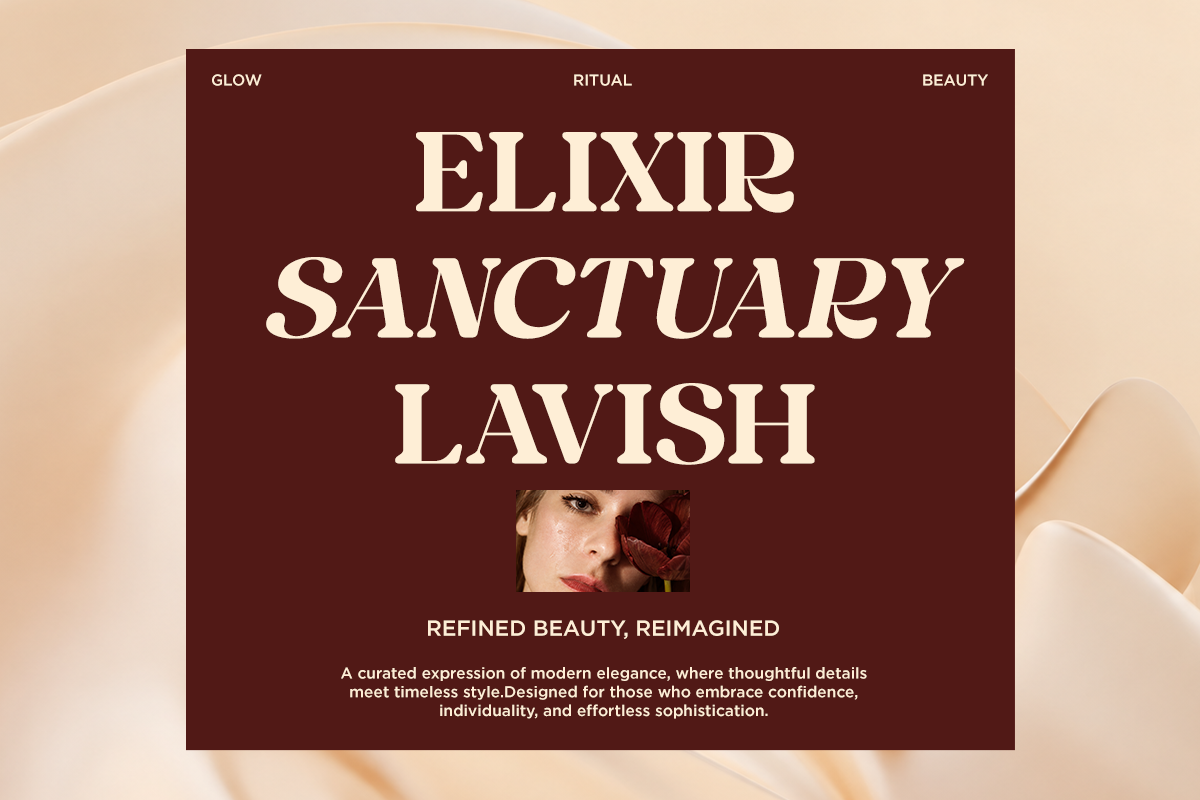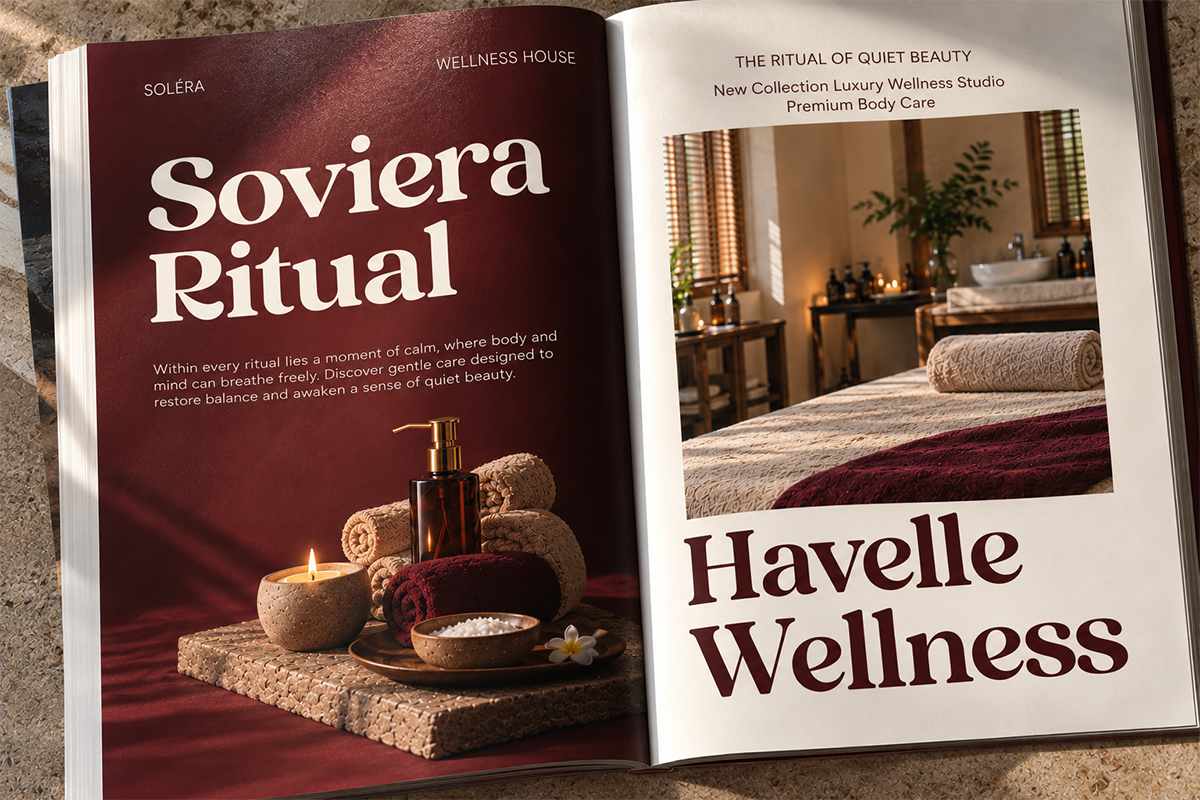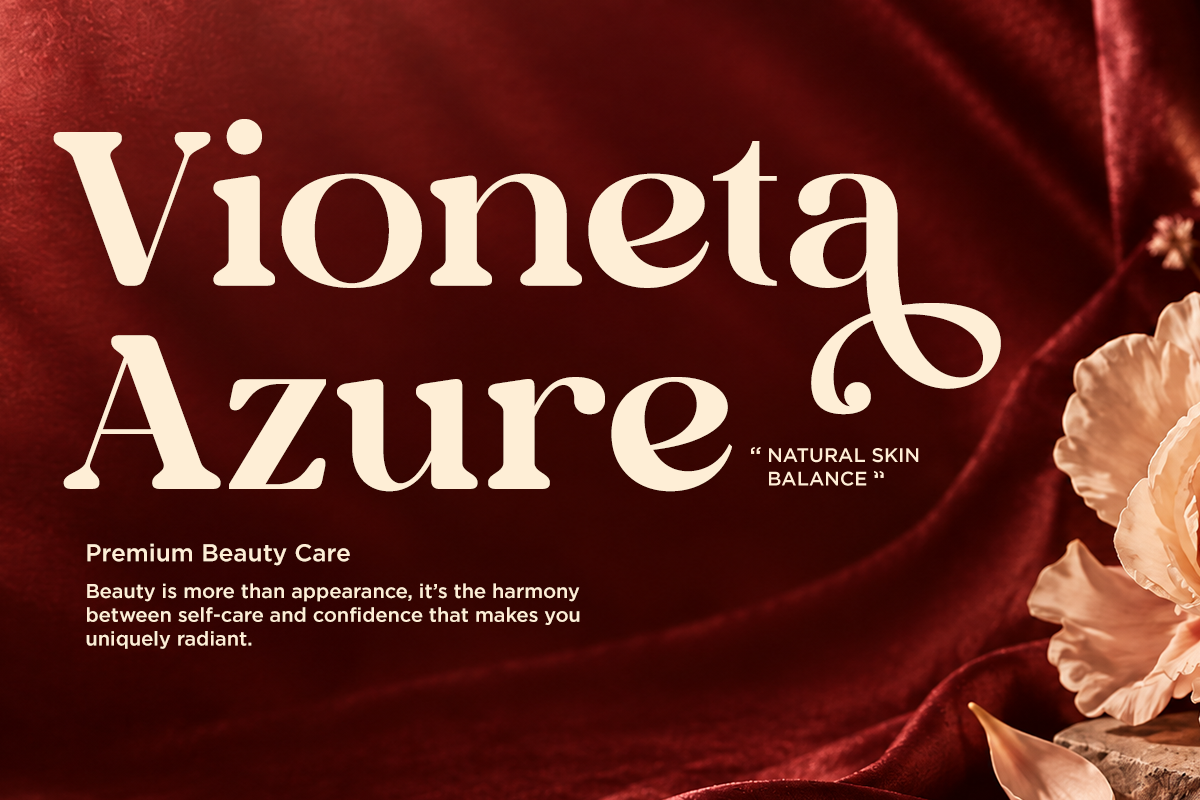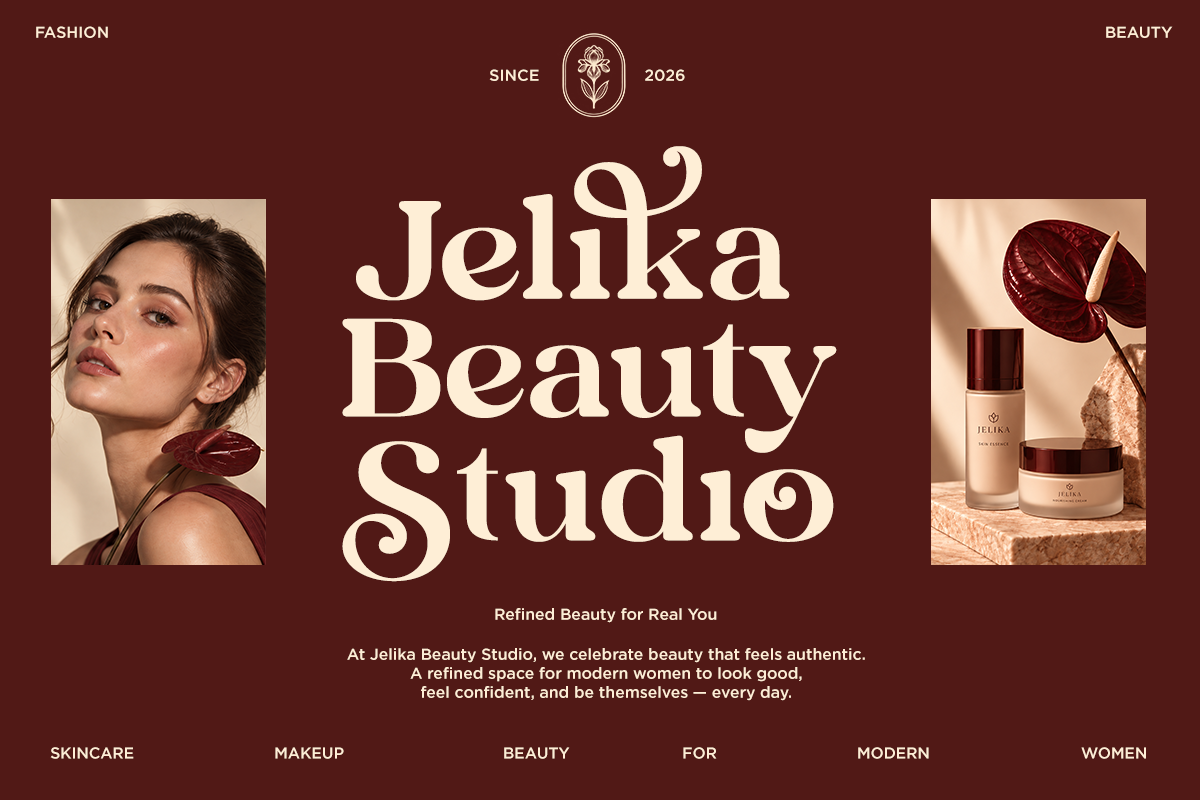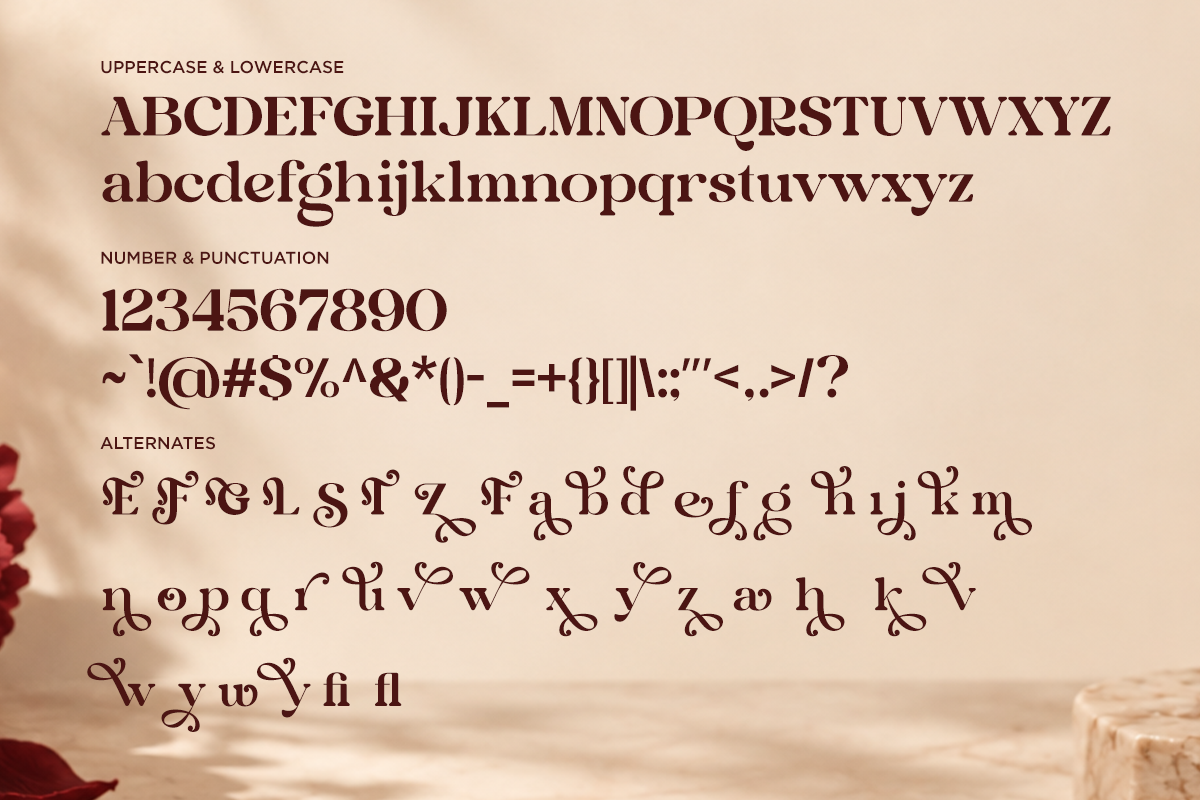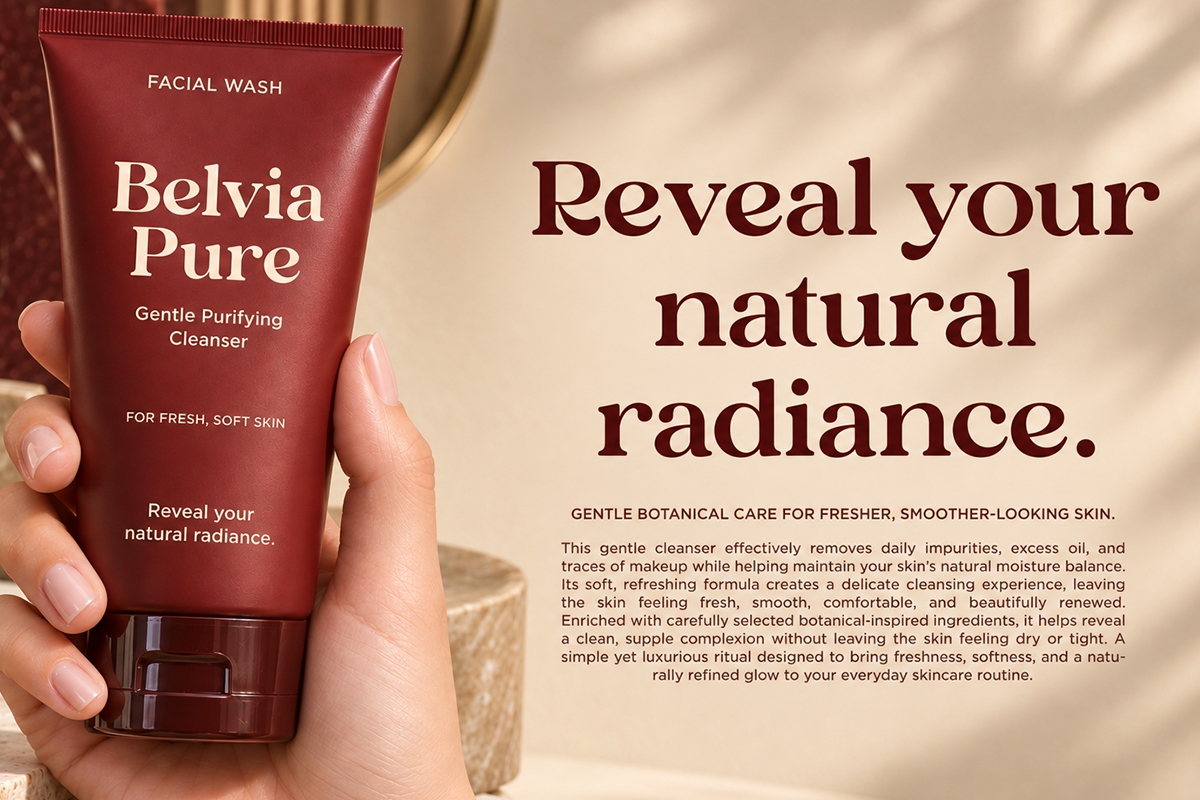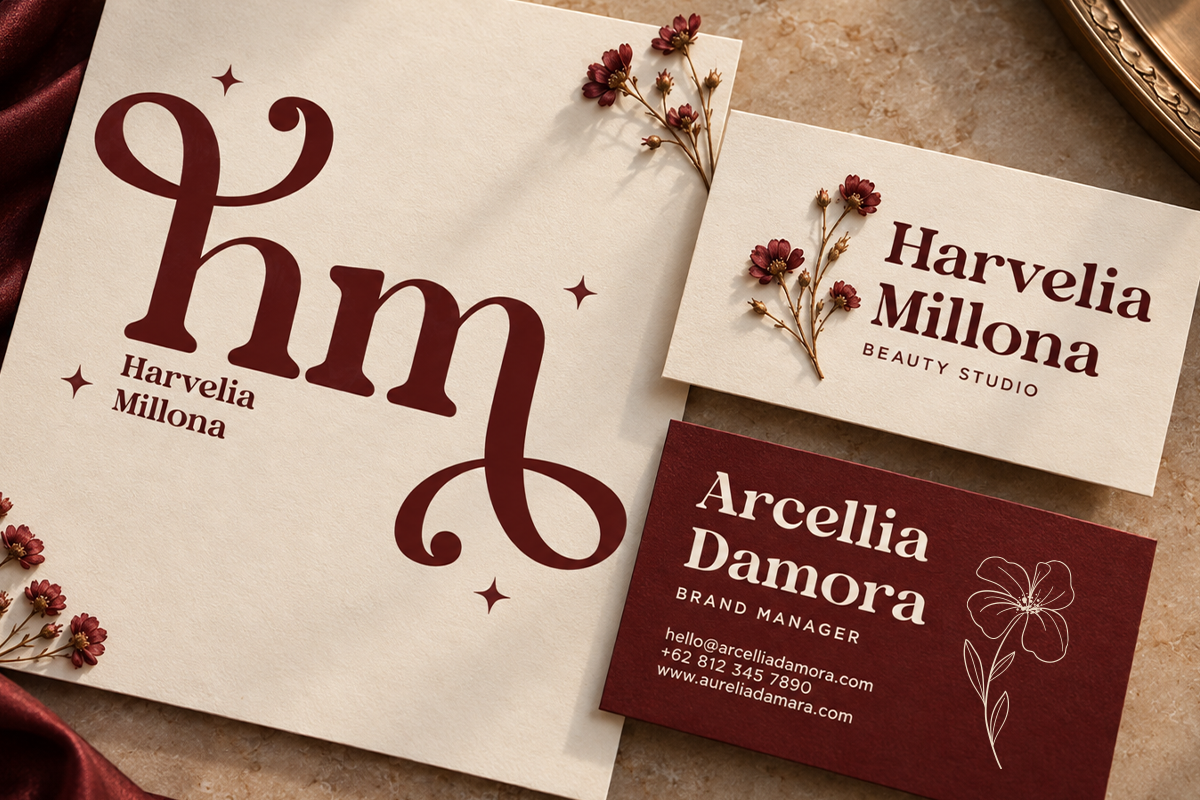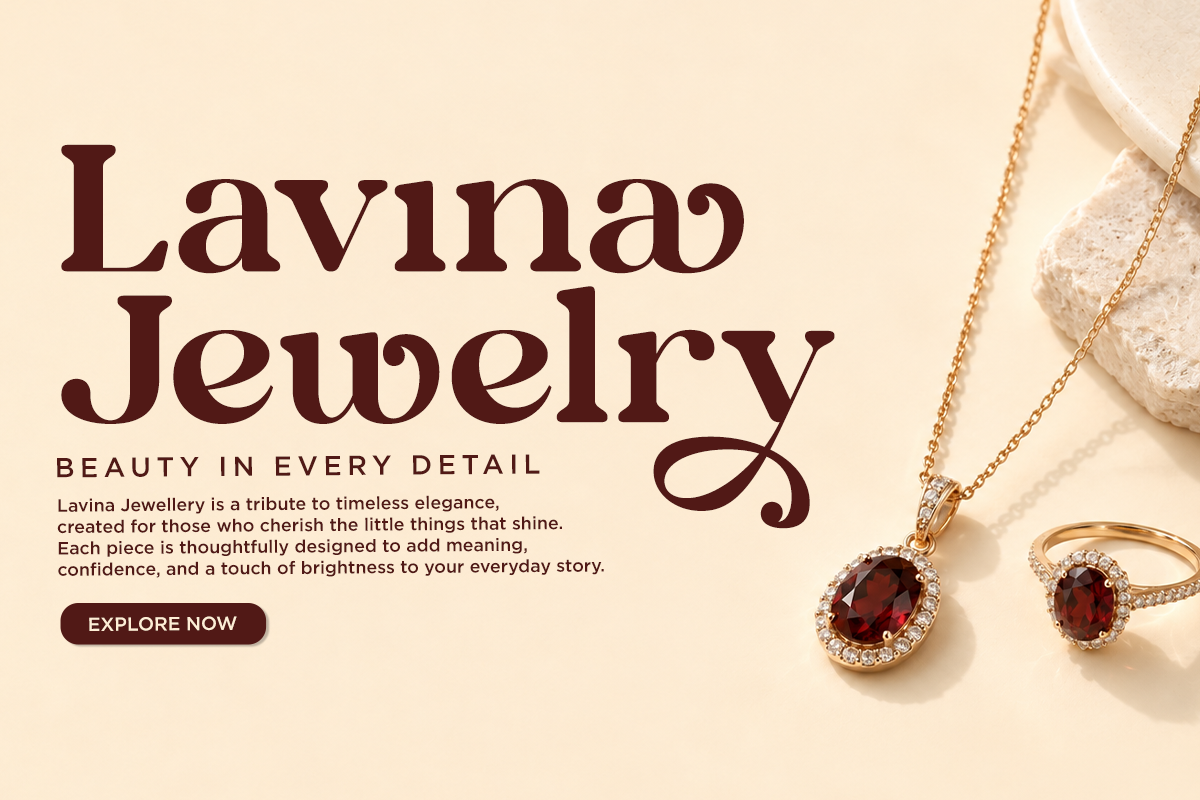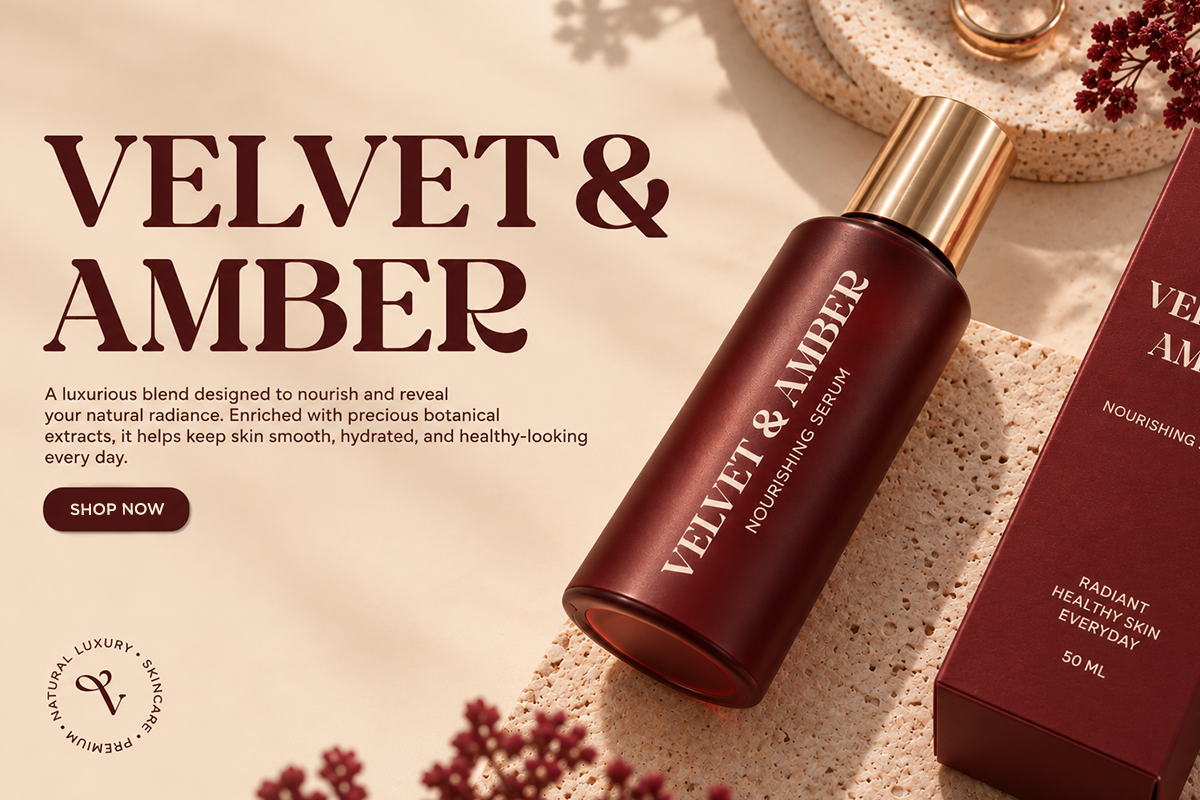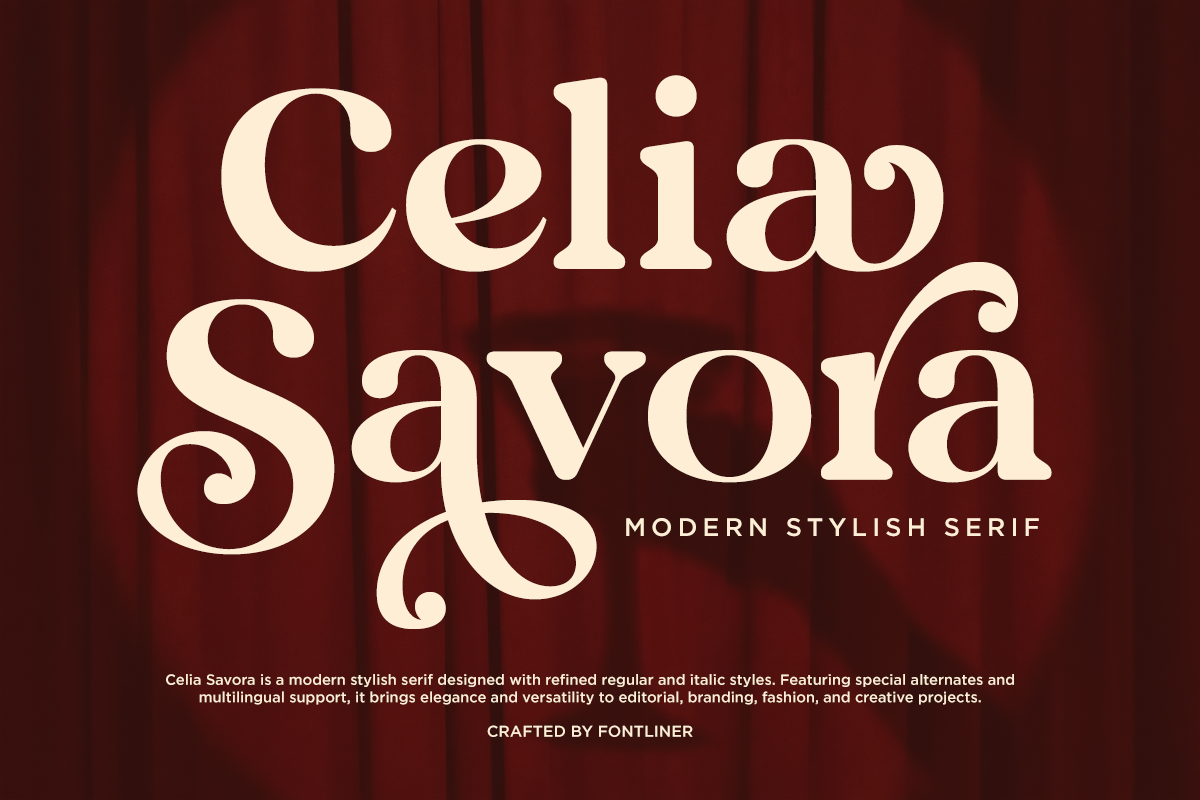
Celia Savora - Stylish Serif Font
Celia Savora is a modern stylish serif font designed to bring an elegant and sophisticated character to your creative projects. Featuring high-contrast letterforms, graceful curves, refined proportions, and distinctive decorative details, it creates a polished editorial look while maintaining a strong and recognizable personality.
Perfect for fashion branding, beauty and cosmetics, luxury packaging, jewelry, wedding stationery, editorial layouts, magazine covers, product packaging, logo design, invitations, social media graphics, and advertising campaigns. Its elegant appearance works beautifully for both large display headlines and refined brand compositions.
Celia Savora is especially suited for projects that need a combination of luxury, femininity, sophistication, and contemporary editorial style. Use it to create memorable brand identities, elegant headlines, stylish promotional materials, and premium-looking visual compositions.
Regular and Italic
Special Alternates
Number, Symbols, and Punctuation